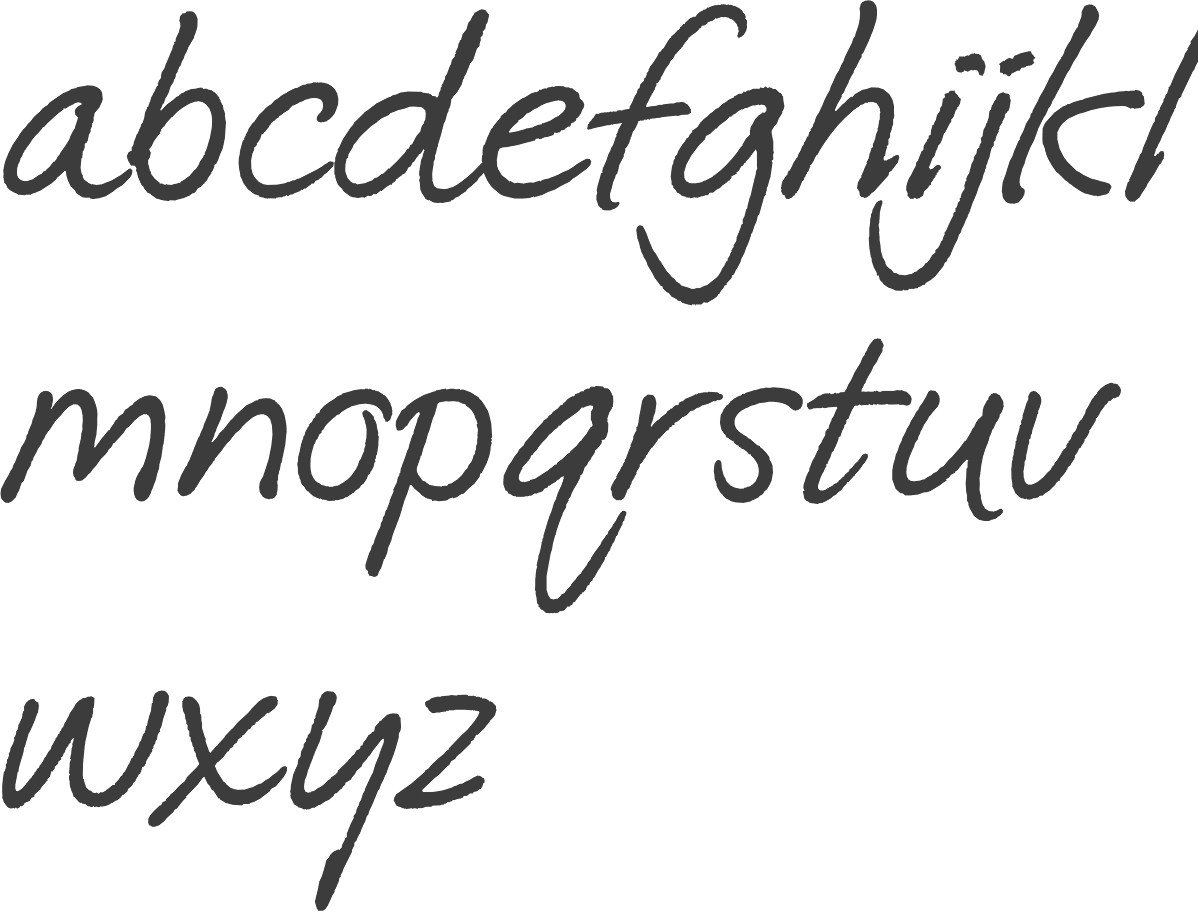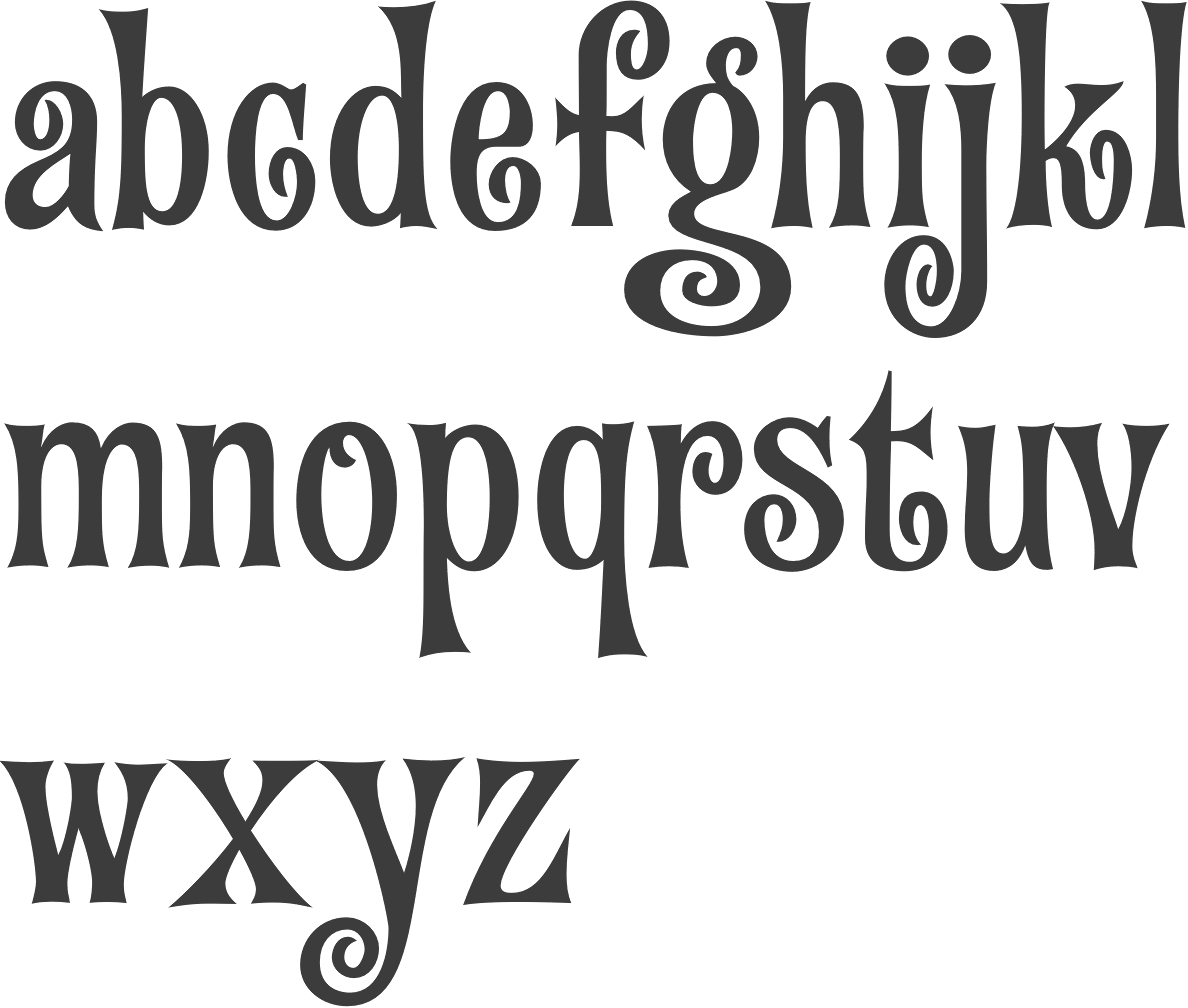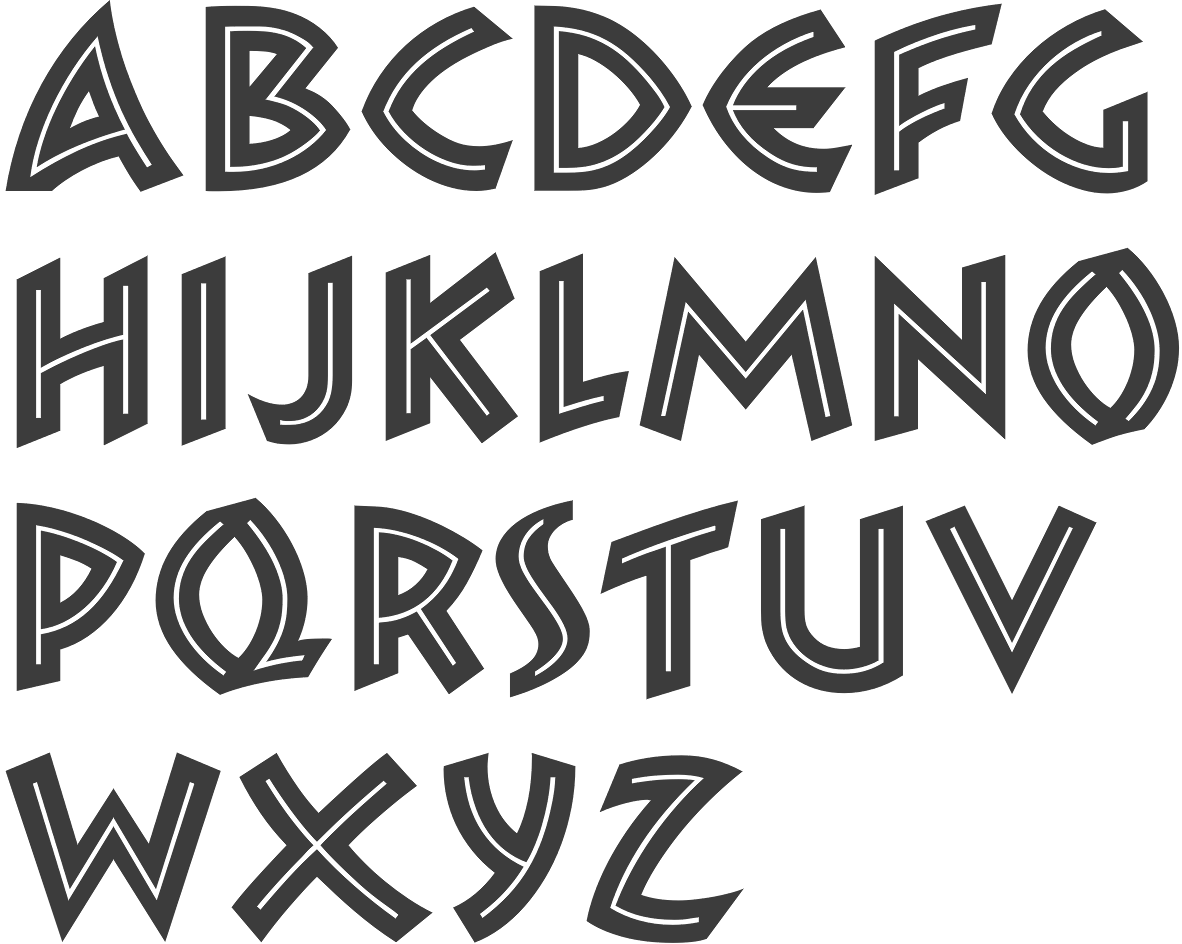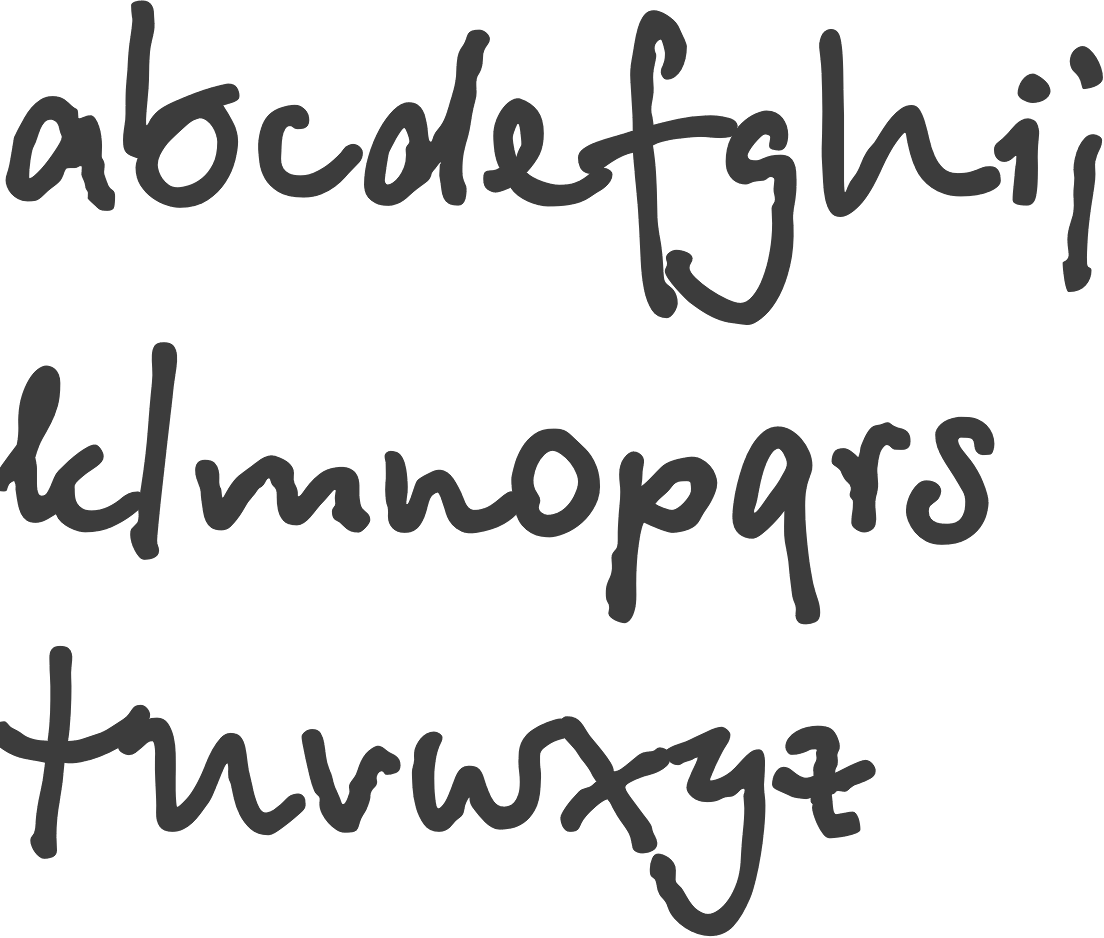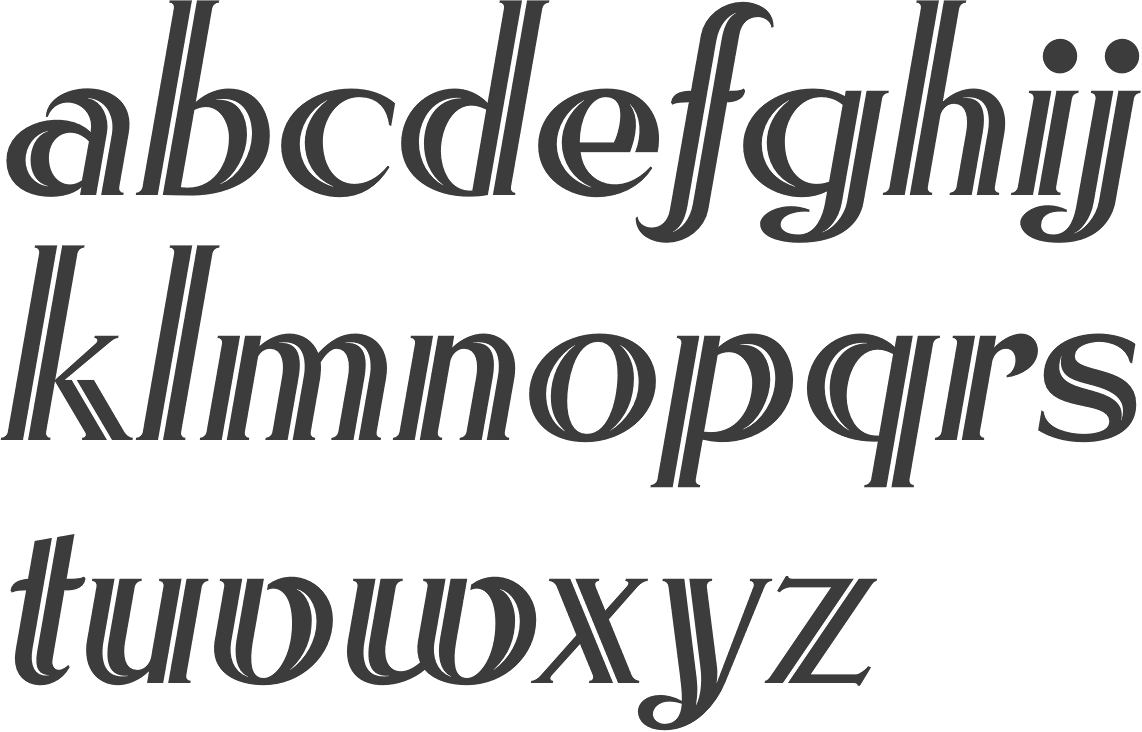
Explore The Beauty Of Jazzy Fonts
A Brief History of Jazzy Fonts
Jazzy fonts have been around since the mid-90s, when they first started appearing on websites and in design projects. They originated on the web as a way to make text more fun and interesting, but quickly became popular in print media and other design projects as well. Since then, they have become a staple of the design world, and their popularity has only increased.
Jazzy fonts are usually characterized by their distinctive letterforms, which often feature exaggerated curves, ornate flourishes, and asymmetrical designs. This makes them stand out from other typefaces, and can give text a more creative and playful feel. They are often used in logos, advertisements, and other graphic design projects, as well as for headlines and titles.
Although jazzy fonts originated in the web, they are now widely used in a variety of media. They are popular on social media sites, blogs, and websites, as well as in print publications and other design projects. They are often used in combination with other typefaces to create a unique and eye-catching look.
How to Use Jazzy Fonts
Jazzy fonts can be used in any design project, but they are especially suited for titles, logos, and headlines. They are perfect for making text stand out, and can give a design an interesting and creative feel. However, it is important to remember that jazzy fonts should only be used sparingly, as they can easily become overwhelming if used too often.
When using jazzy fonts, it is important to consider the overall look and feel of the design. They should be used to add visual interest and draw attention to the text, but should not overpower the other elements of the design. It is also important to remember that jazzy fonts are not always the most readable, so the text should be kept short and to the point.
Jazzy fonts are a great way to add visual interest and create an eye-catching look for any design project. They can be used for titles, logos, and headlines, as well as for other text-based designs. They should be used sparingly, however, as they can easily become overwhelming if used too often. Jazzy fonts can be found on a variety of websites and in design software, as well as in books, magazines, and other publications.